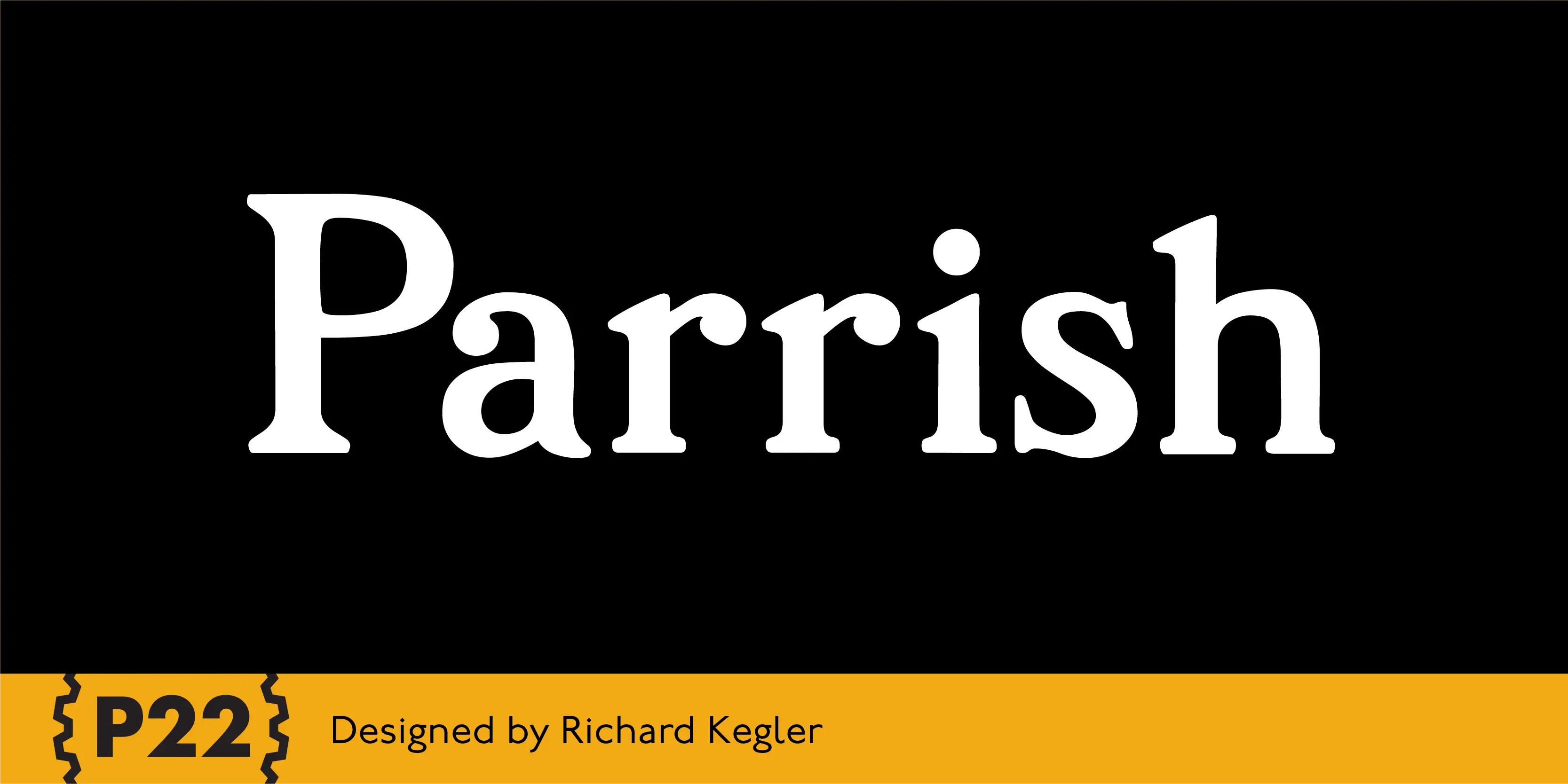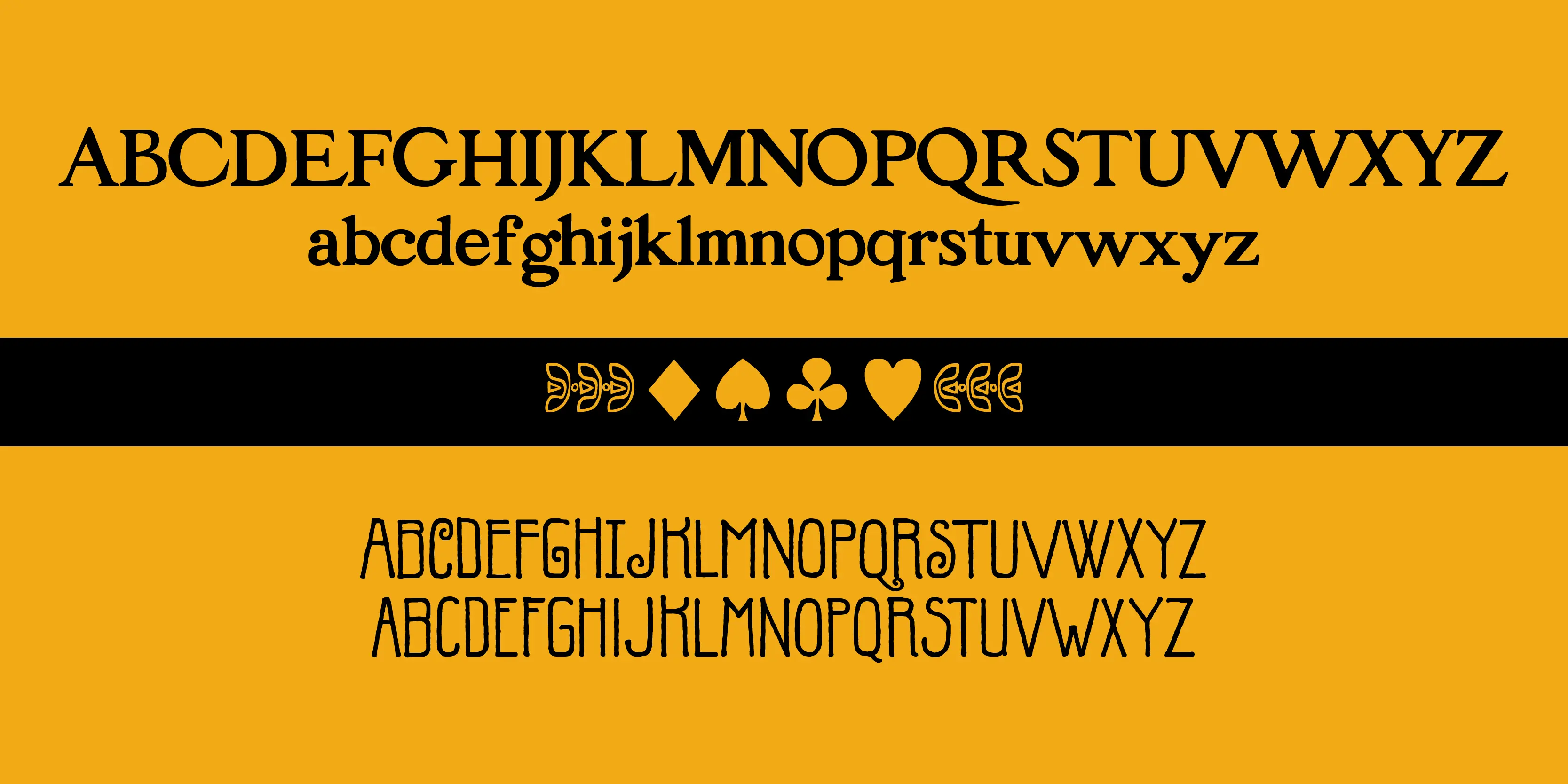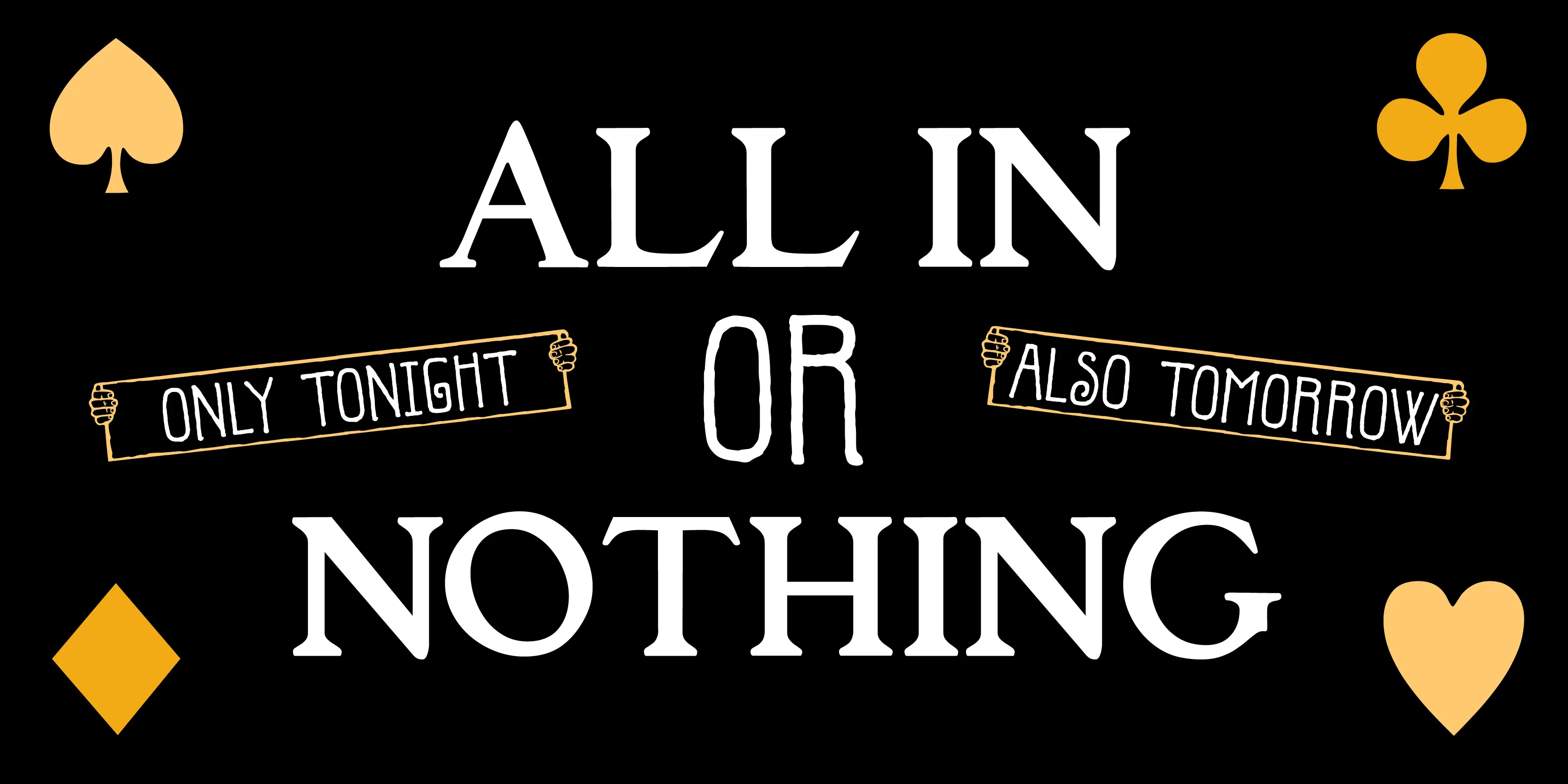
Parrish Fonts
Parrish Hand
Parrish Roman
Parrish Extras
Parrish
Maxfield Parrish (1870–1966), whose career spanned nearly ninety years, holds a unique place in American art and culture. He was enormously accomplished and successful in both fine art and commercial endeavors. Parrish’s hand-drawn letters were a significant part of his works, which bridged the familiar with a startling otherworldliness. The P22 Parrish font set was created in cooperation with the National Museum of American Illustration.
- Common Ligatures
- Stylistic Alternates
- Stylistic Sets